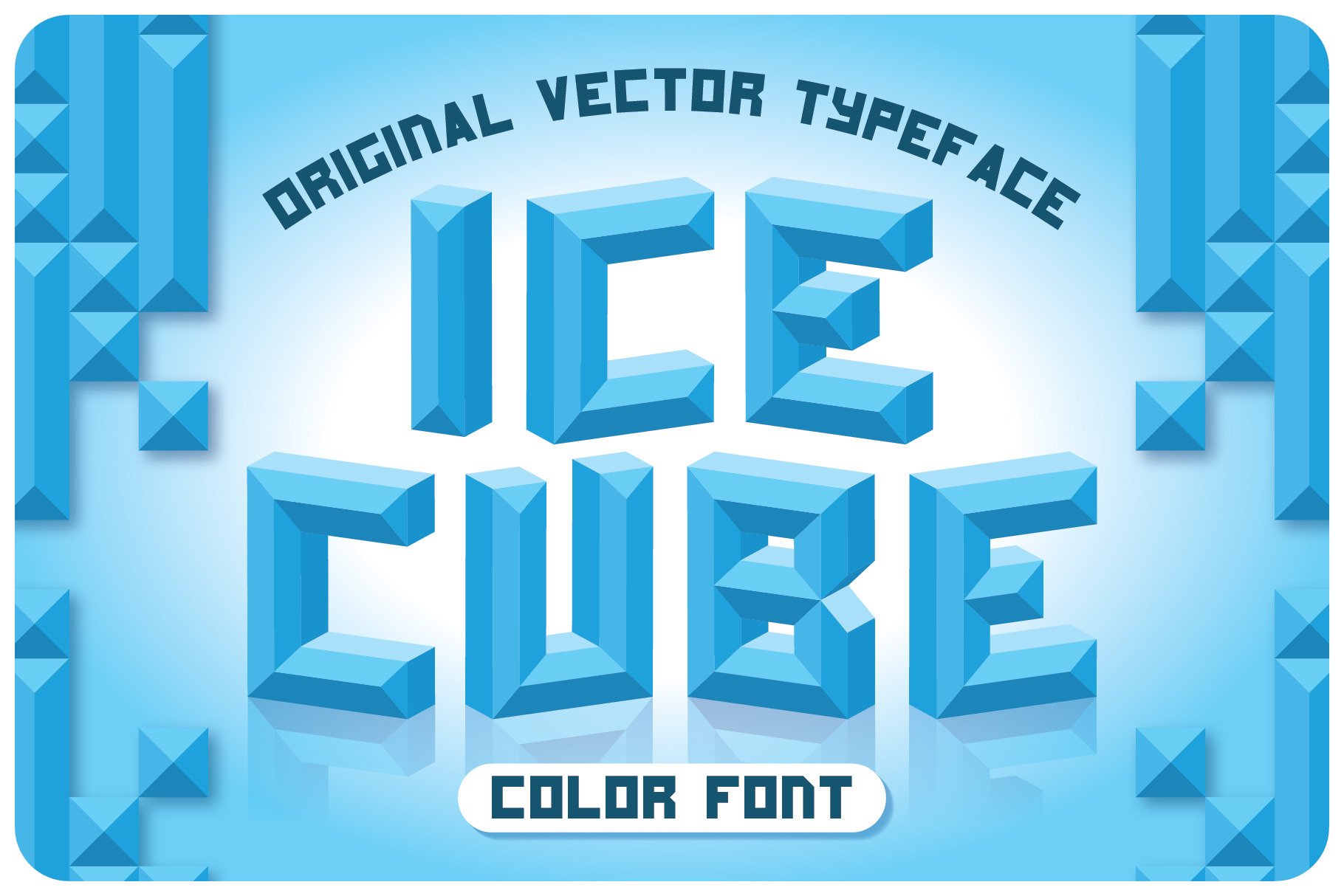
Ice Cube Color Font
Introducing original color label font named Ice Cube. Check out all available characters on previews. The font family has six styles: Regular, Stroke, Color, 3d Blue, 3d Red, 3d Green. 3D font styles have alternates for each available character. For exampla you can type in different angles for each letter. This font will look good on any original designs like a poster, T-shirt, label, logo, etc.
- Alternates for each available character in 3d Blue, 3d Red, 3d Green styles.